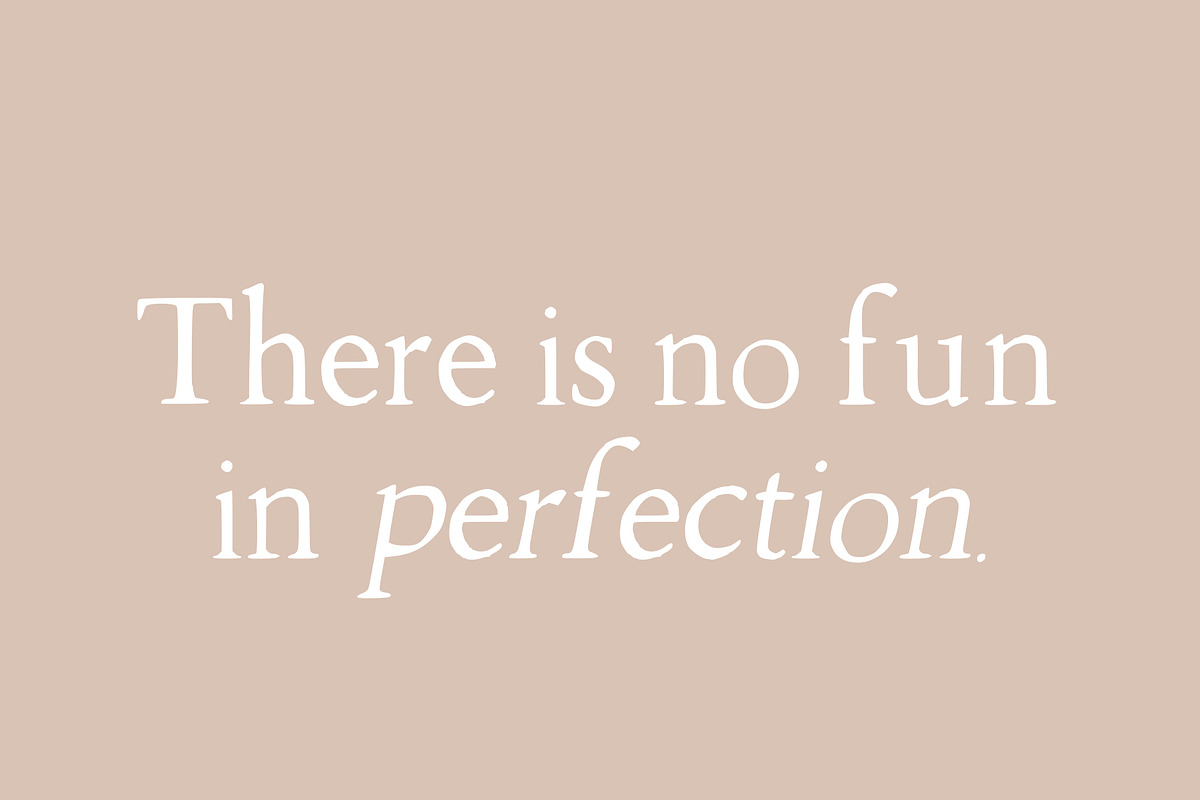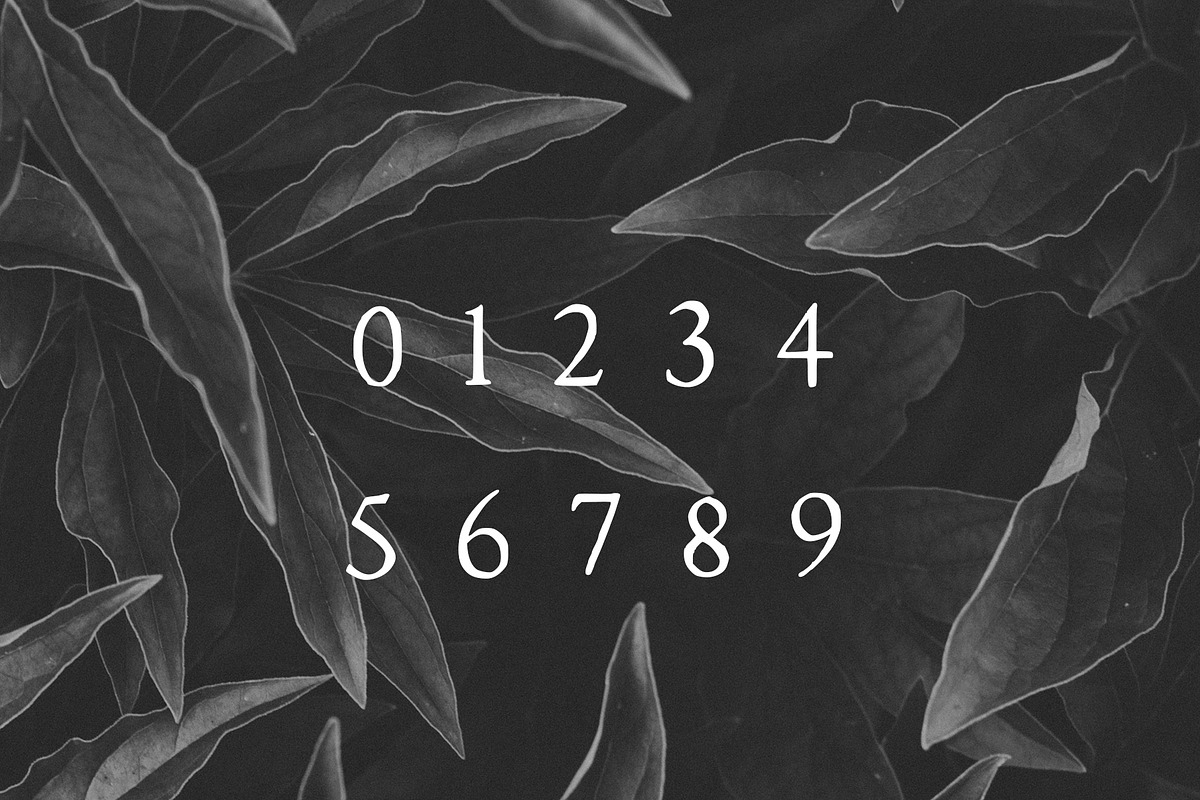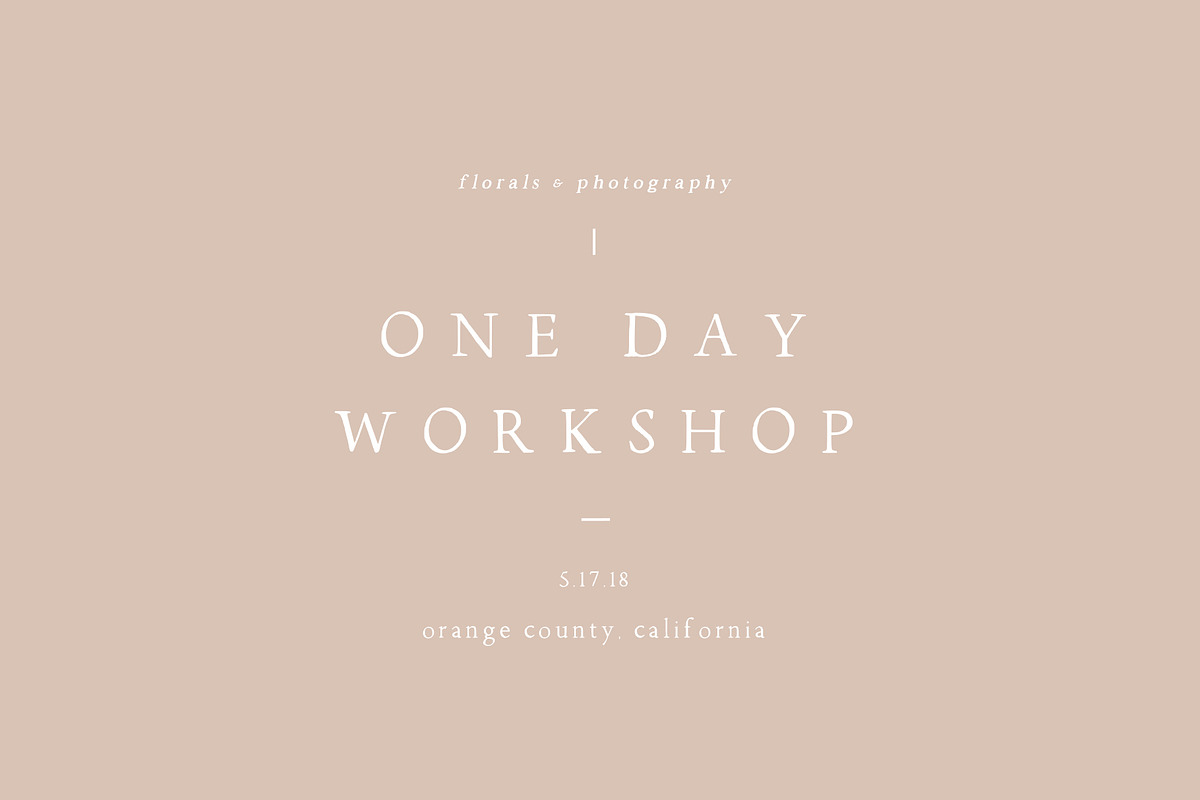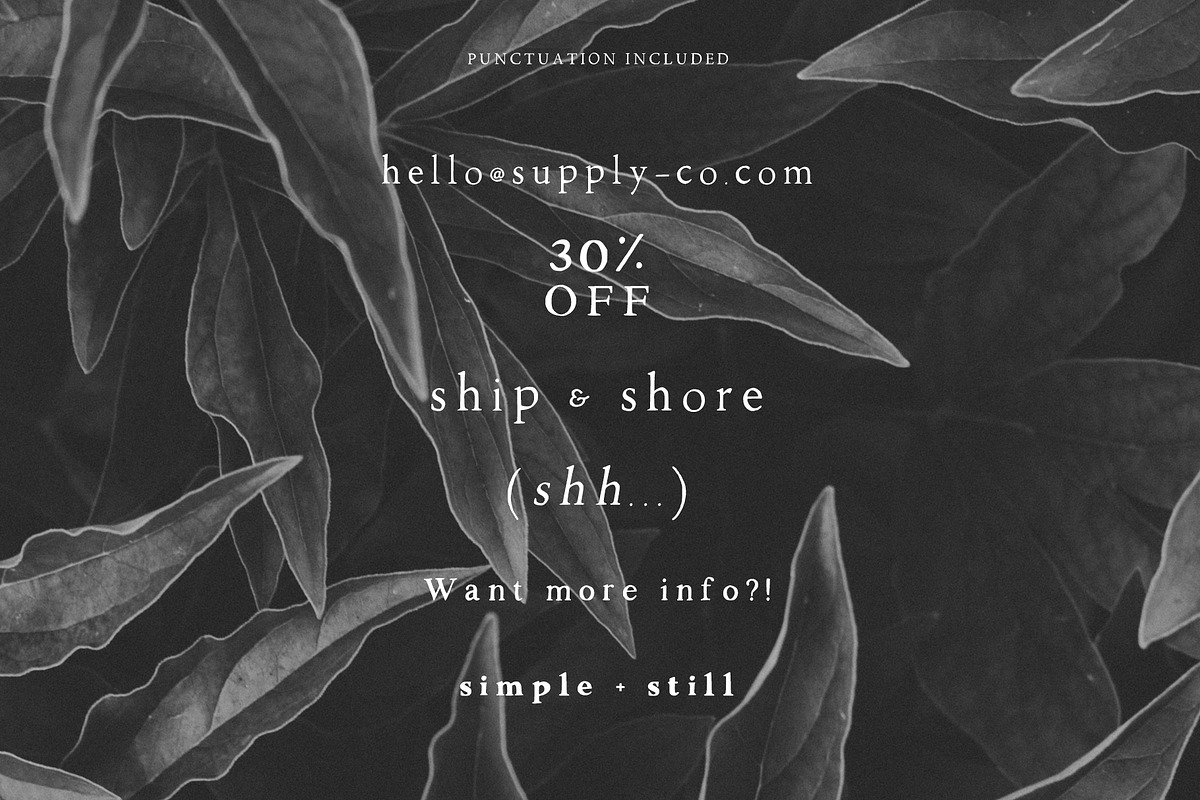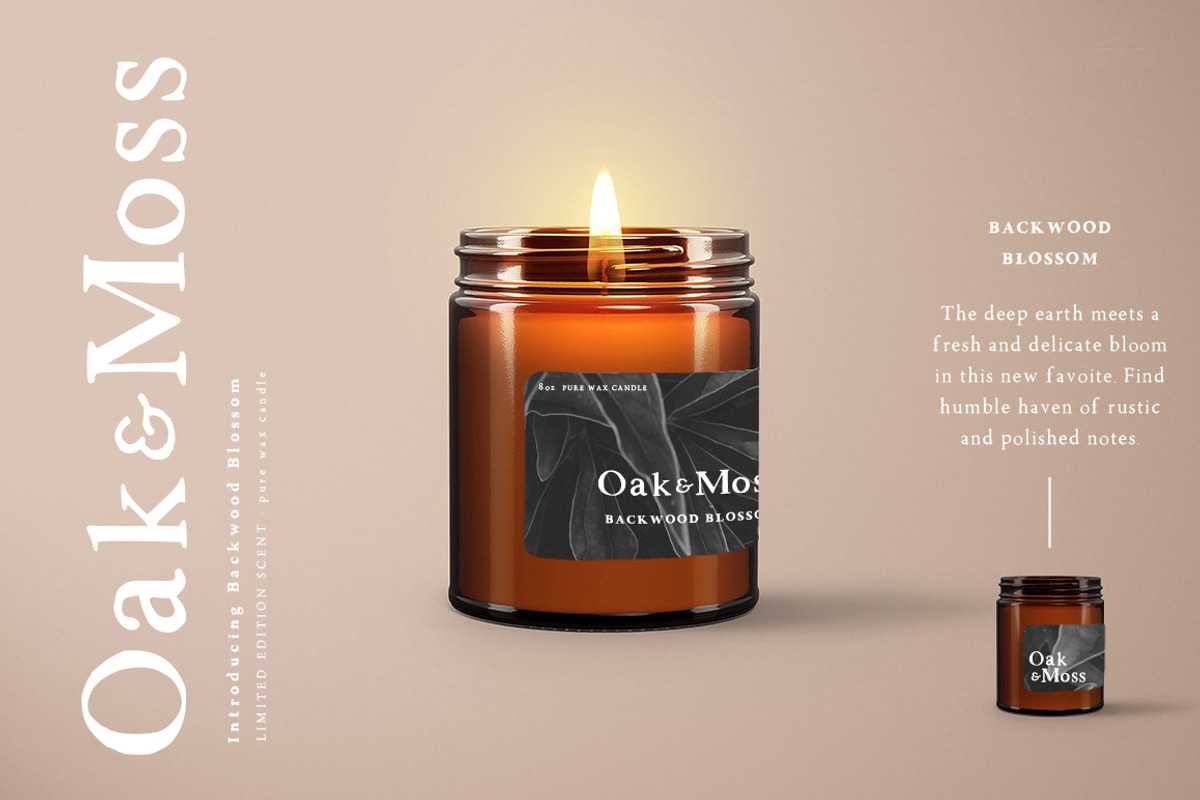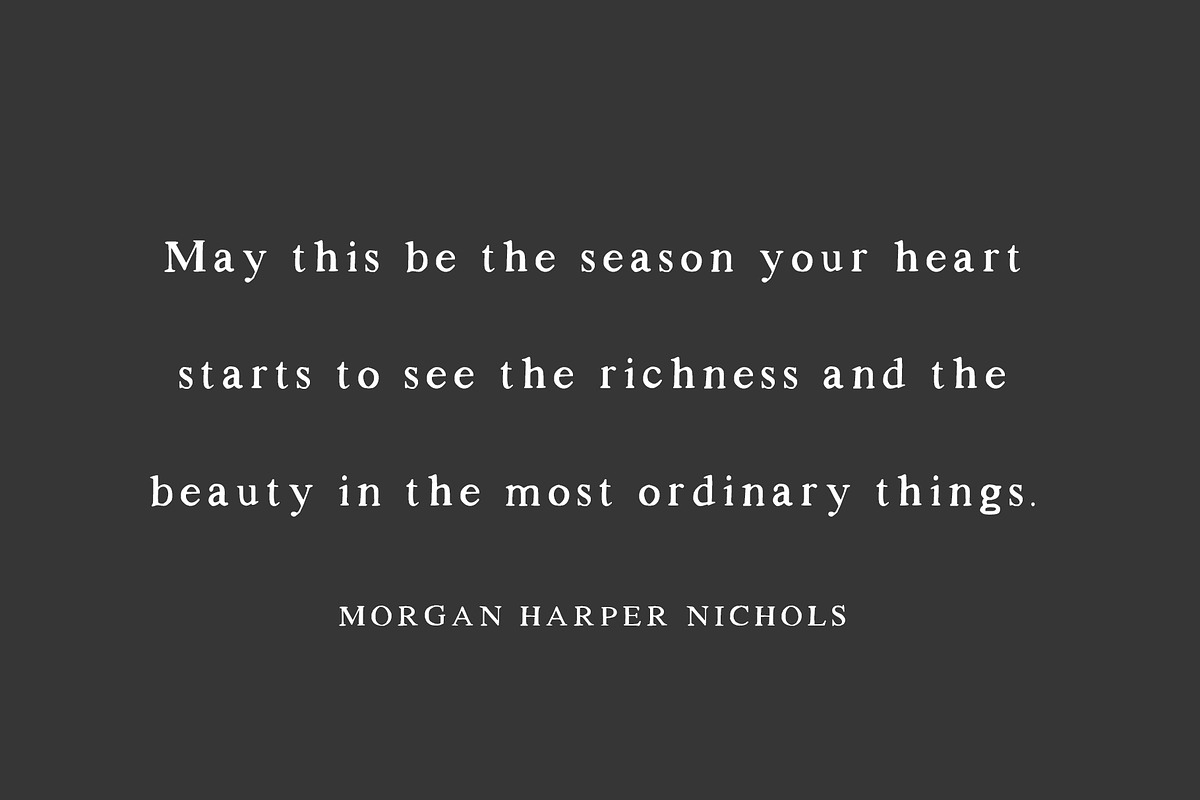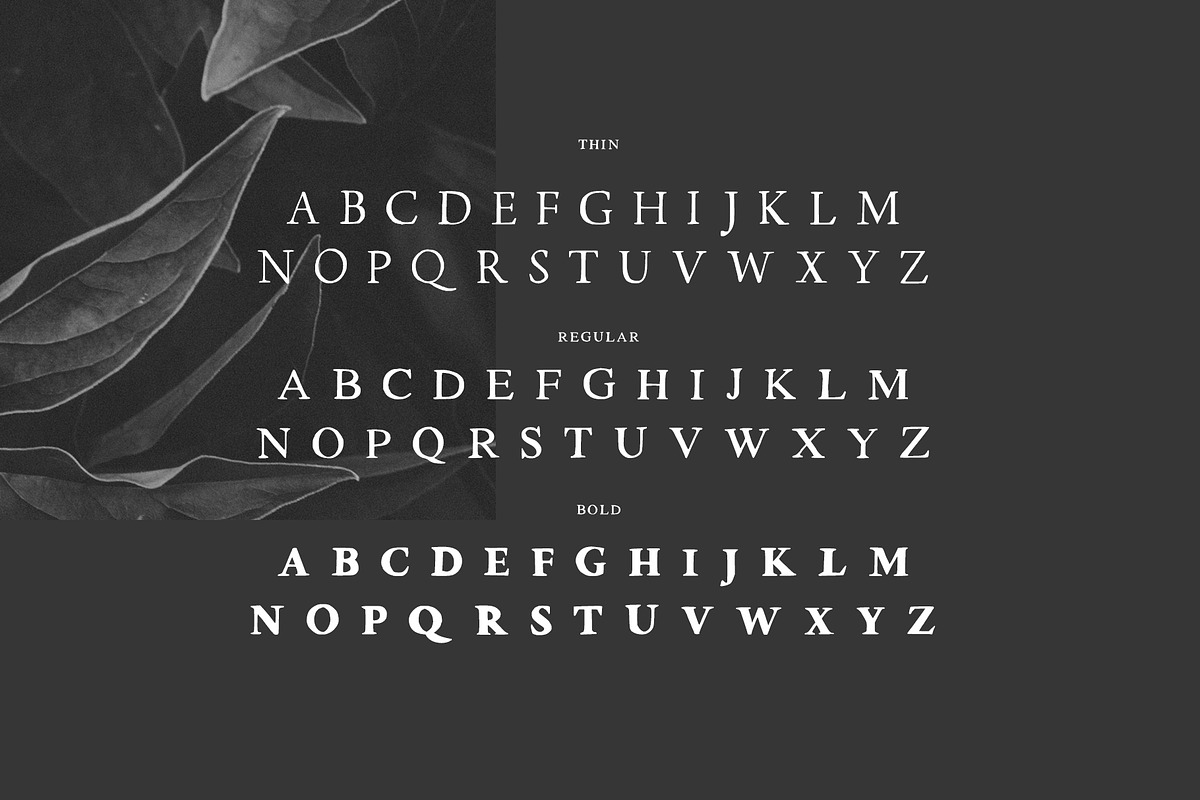
Walker: a Handlettered Serif
The Best-Selling font from the foundry, Walker, is winsome, imperfect, but so classic.
Walker is a handlettered serif font family including Thin, Regular, and Bold variations. It's a serif that isn't too stiff with soft, feminine, hand-drawn touches. Use this font for your next logo, or spaced out nicely on your next Instagram inspirational quote.
Each variation was drawn separately and has unique qualities to it. I think Walker Thin in all caps might be my favorite. The downloadable file includes TTF, OTF, SVG, and WOFF font files. Numbers and basic punctuation are included - and just added FRENCH & SPANISH Accents.